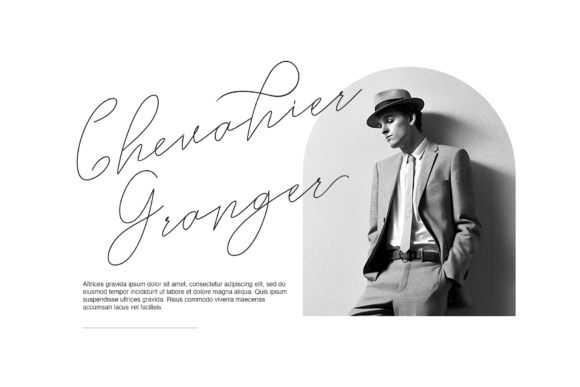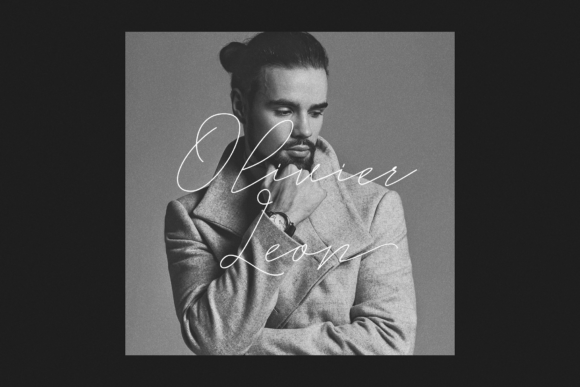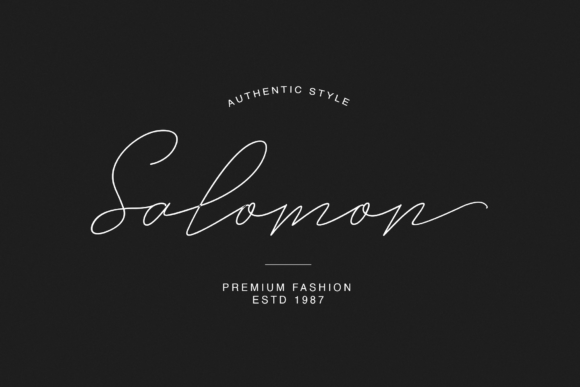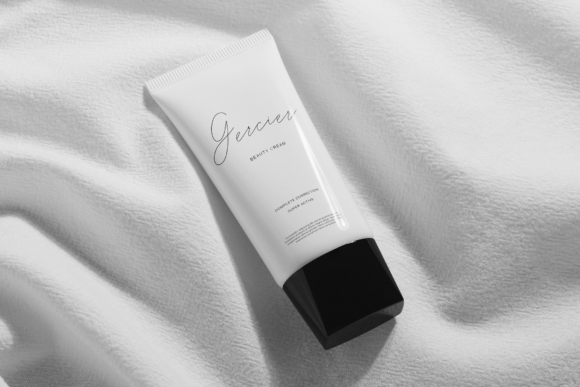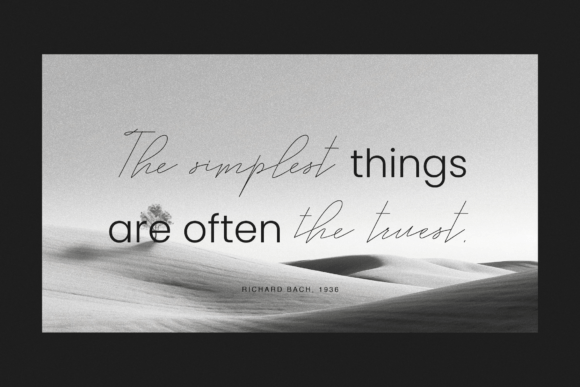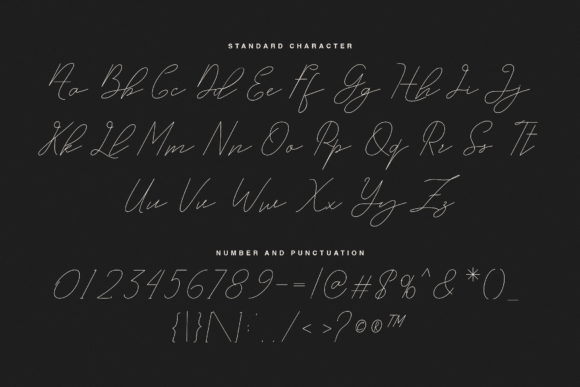
Introducing Embarghost: A Modern Calligraphy Font for Creative Designs
In the world of typography, a new font has emerged that is taking the design community by storm. Say hello to Embarghost, a modern calligraphy font that is redefining the way we approach creative design. With its unique, handwriting-inspired style, Embarghost is the perfect addition to any designer’s toolkit.
What is Embarghost Font?
Embarghost is a modern calligraphy font that boasts a distinctive, handwriting-inspired style. Designed to mimic the natural flow of handwriting, this font is perfect for creating unique and eye-catching designs. Its modern and unique calligraphic form makes it an excellent choice for designers looking to add a touch of elegance and sophistication to their work.
Key Features of Embarghost Font
- Handwriting-inspired style: Embarghost font has a natural, handwriting-inspired style that gives it a unique and personal touch.
- Modern and unique calligraphic form: The font’s modern calligraphic form makes it perfect for use in a variety of design applications.
- Natural writing style: The writing style of Embarghost font is very natural, making it easy to read and understand.
- Versatile: Embarghost font can be used for a wide range of design applications, including titles, logos, wedding invitations, letterheads, labels, news, posters, badges, and more.
Uses of Embarghost Font
Embarghost font is an incredibly versatile font that can be used for a wide range of design applications. Here are some of the many ways you can use Embarghost font:
- Wedding Invitations: Add a touch of elegance and sophistication to your wedding invitations with Embarghost font.
- Logos and Branding: Use Embarghost font to create unique and memorable logos and branding materials.
- Posters and Flyers: Create eye-catching posters and flyers with Embarghost font.
- Letterheads and Labels: Add a professional touch to your letterheads and labels with Embarghost font.
- News and Magazines: Use Embarghost font to add a touch of elegance to your news and magazine designs.
- Badges and Certificates: Create custom badges and certificates with Embarghost font.
Why Choose Embarghost Font?
So, why should you choose Embarghost font for your design projects? Here are just a few reasons:
- Unique and Eye-catching: Embarghost font is a unique and eye-catching font that will help your designs stand out from the crowd.
- Elegant and Sophisticated: The font’s elegant and sophisticated style makes it perfect for use in high-end designs.
- Easy to Read: Despite its unique style, Embarghost font is easy to read and understand.
- Versatile: Embarghost font can be used for a wide range of design applications.
In conclusion, Embarghost font is a modern calligraphy font that is perfect for designers looking to add a touch of elegance and sophistication to their work. With its unique, handwriting-inspired style and versatile design, Embarghost font is sure to become a favorite among designers and crafters alike. Whether you’re creating wedding invitations, logos, posters, or any other type of design, Embarghost font is an excellent choice.